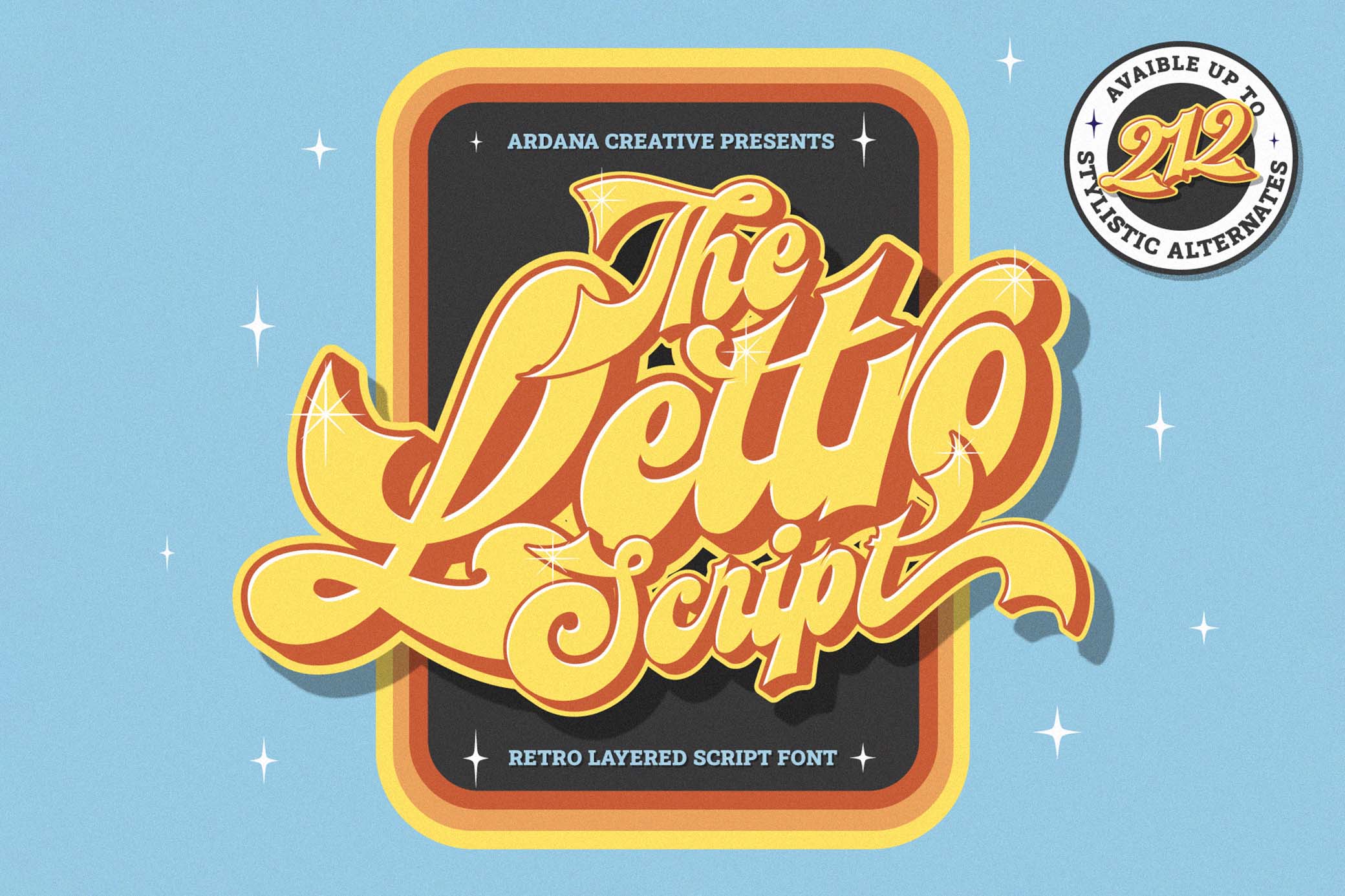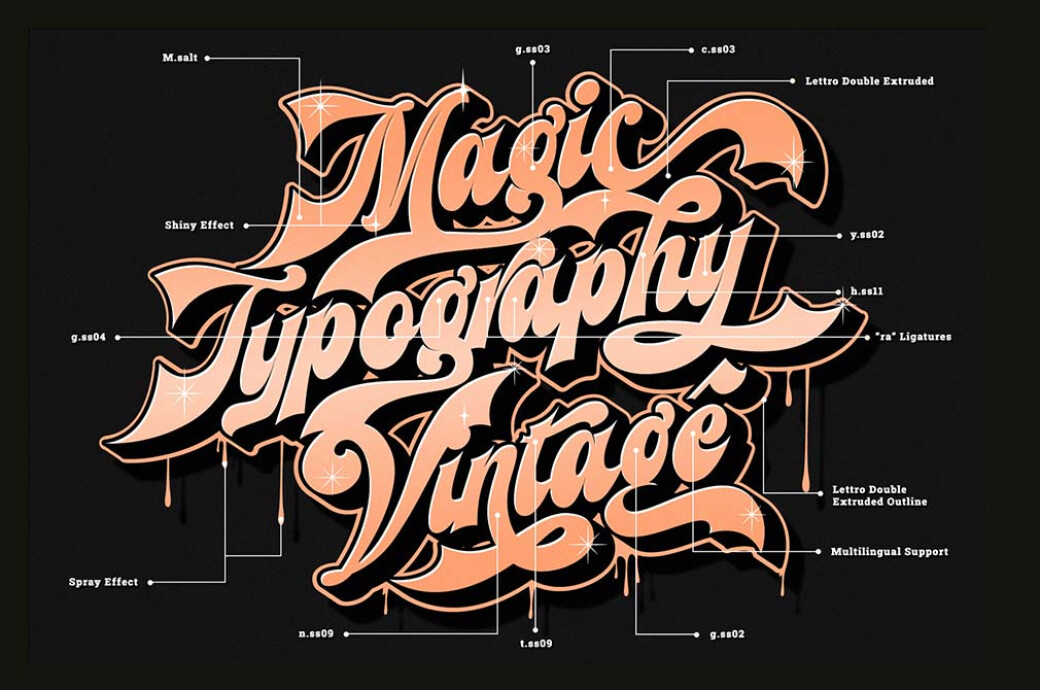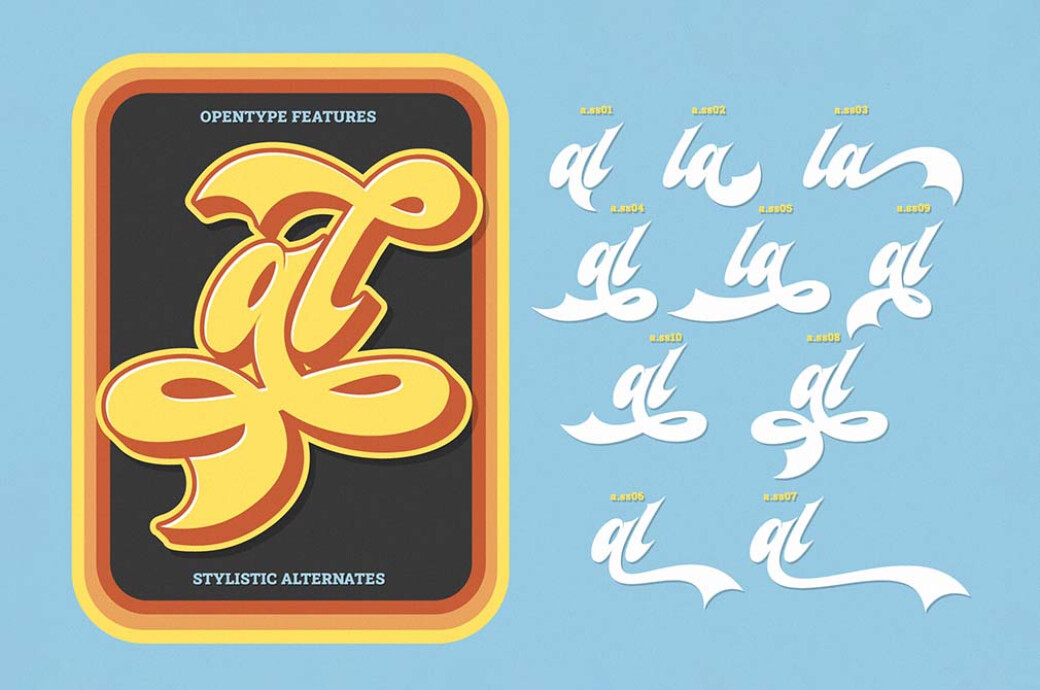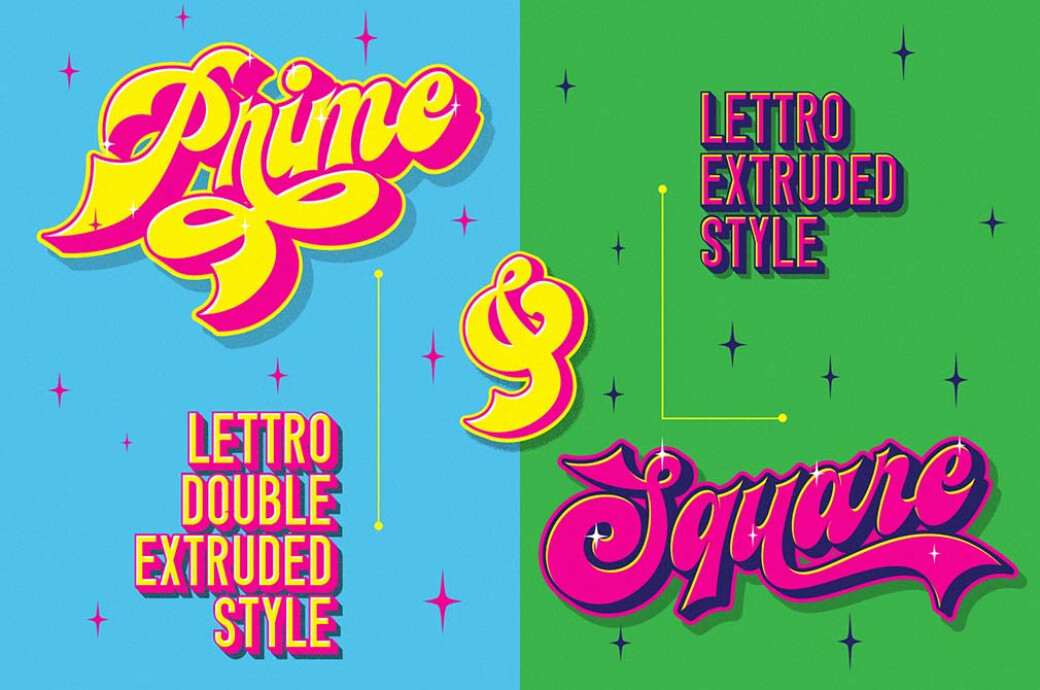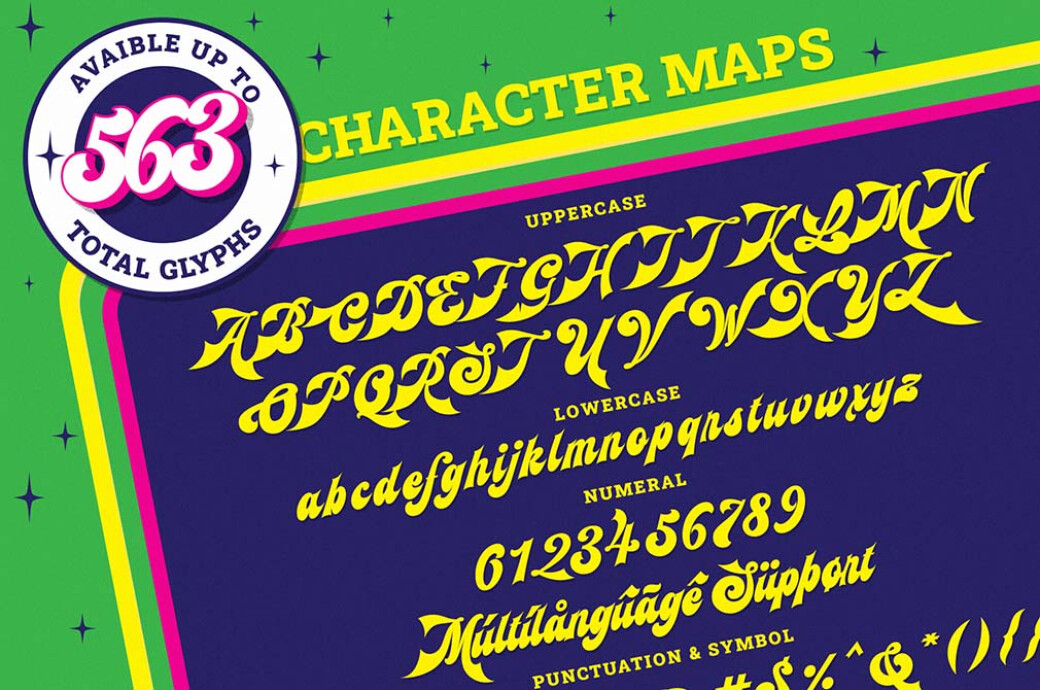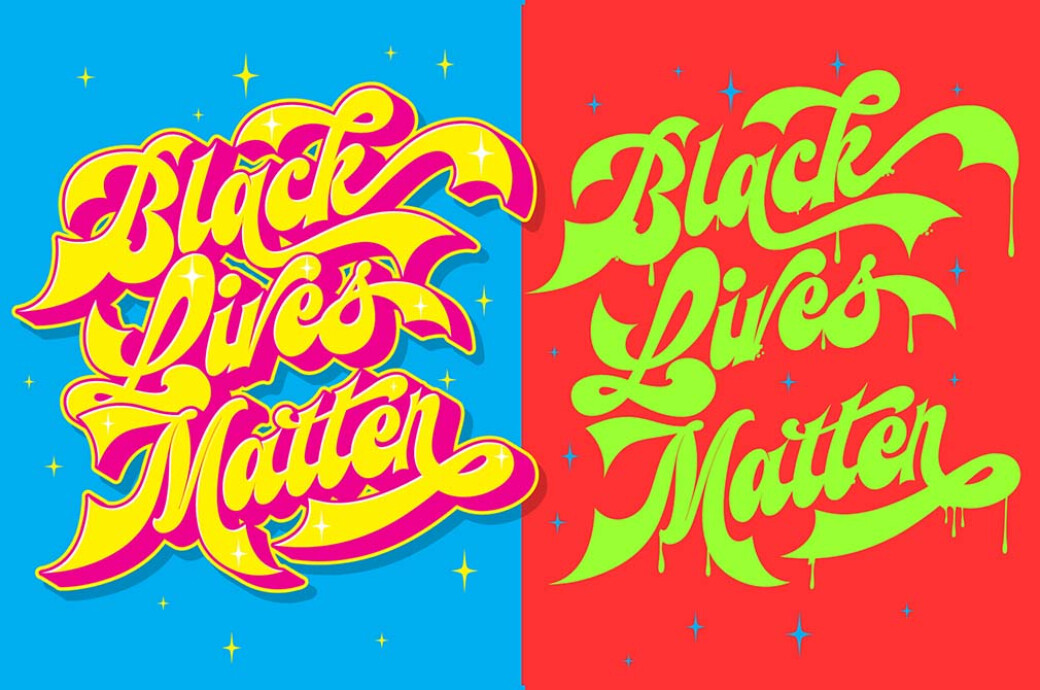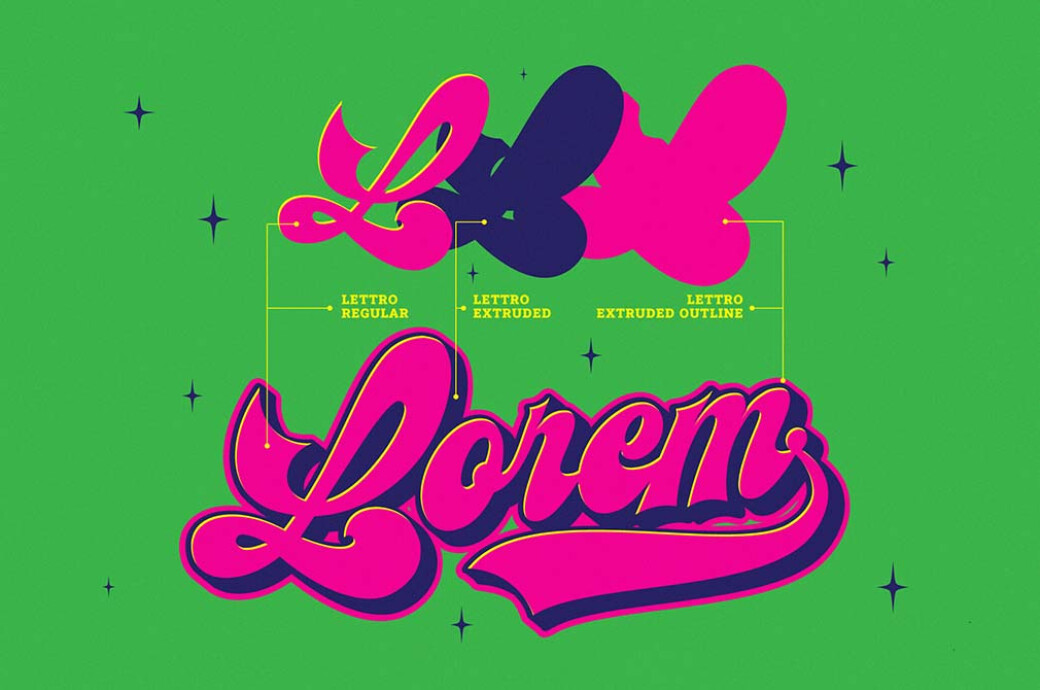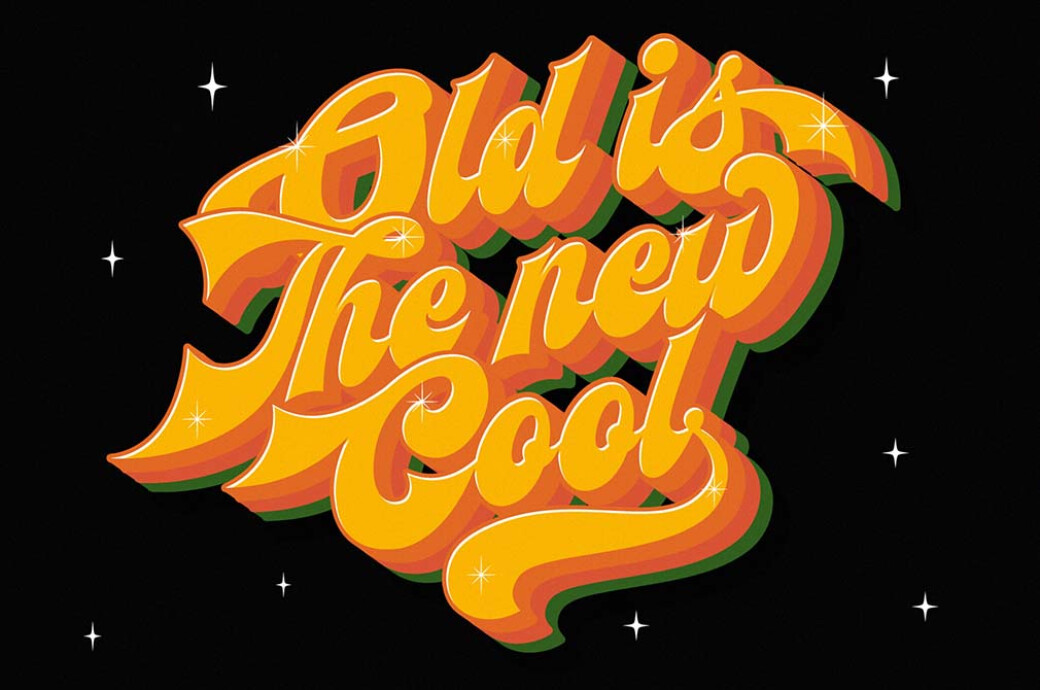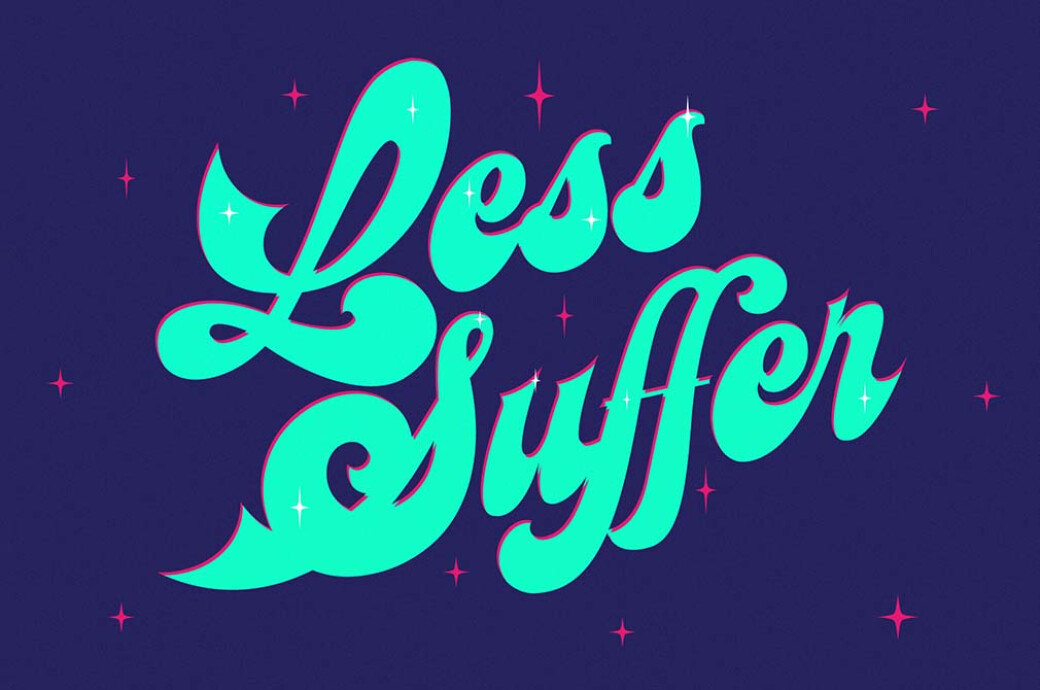
Lettro — Retro Layered Script
Lettro is an exquisite bold script font family inspired by the retro design from 70-80-ish. Its funky vibes are irresistible and so joyful!This font family includes 5 layered fonts: regular, extrude, extrude outline, double extruded, and double extruded outline. Each font wascreated with a ton of stylistic alternates, swashes, and ligatures. Feel free to combine Lettro's font styles to design out-of-the-box logos, t-shirts, vintage badges, retro quotes, branding, packaging, posters, signboards, social media needs, etc.